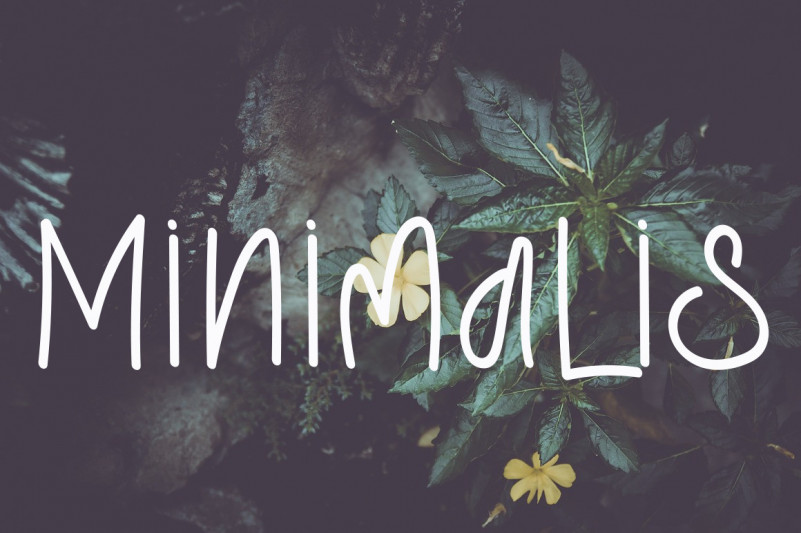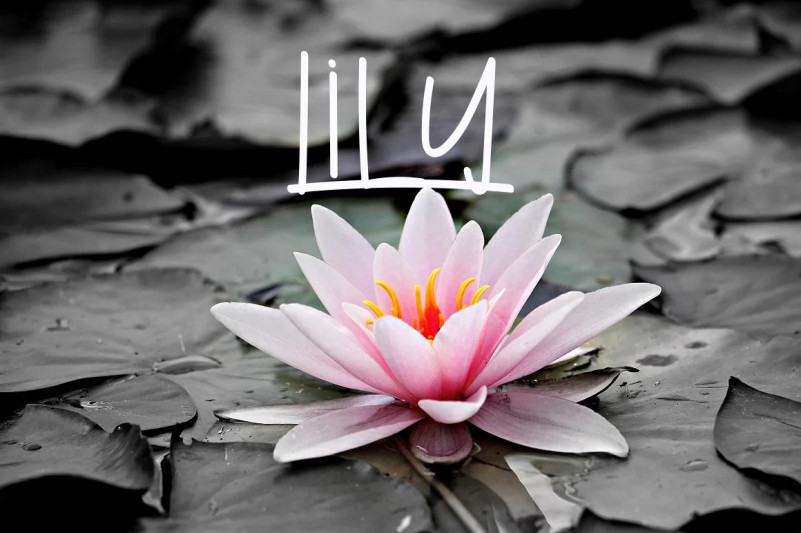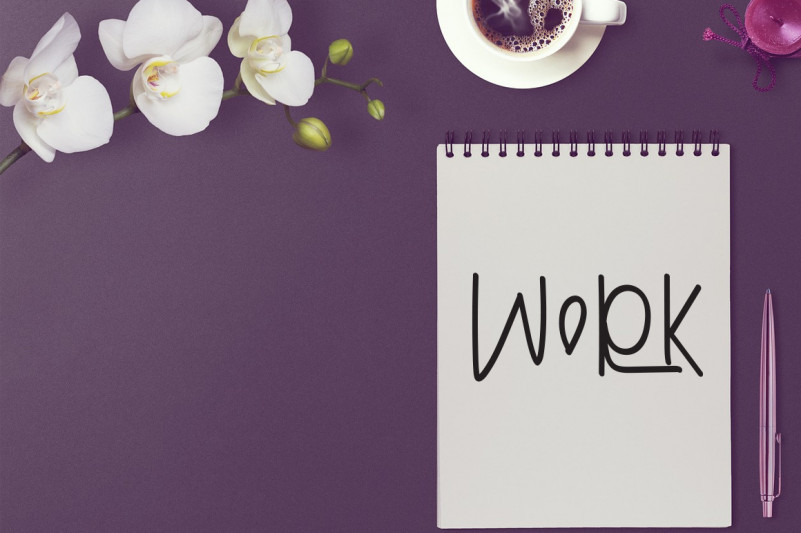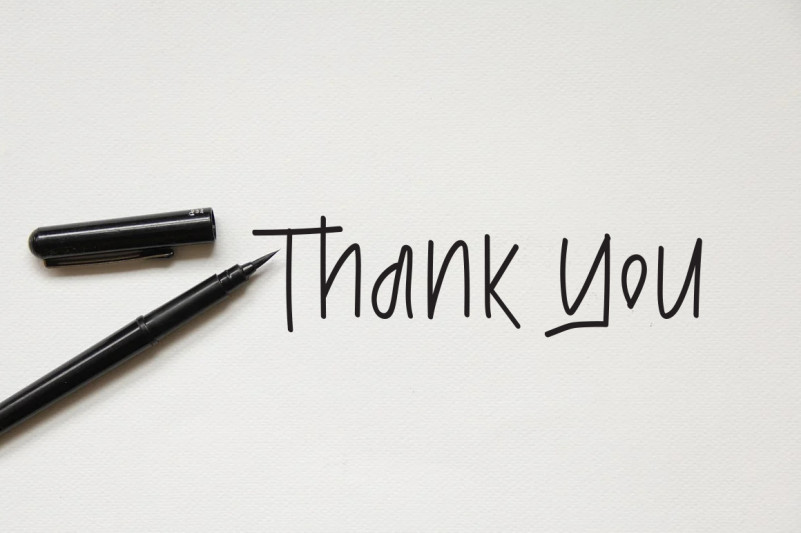
Easter Flowers Handwritten Font
This is a dainty, genuine and cursive handwritten font. This gentle font will look gorgeous on a variety of design ideas. It will add a joyful and romantic touch to each of your projects!